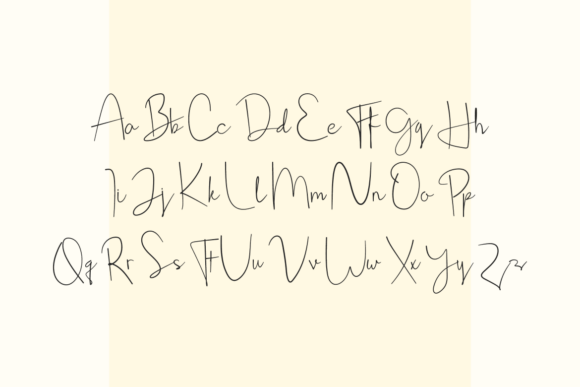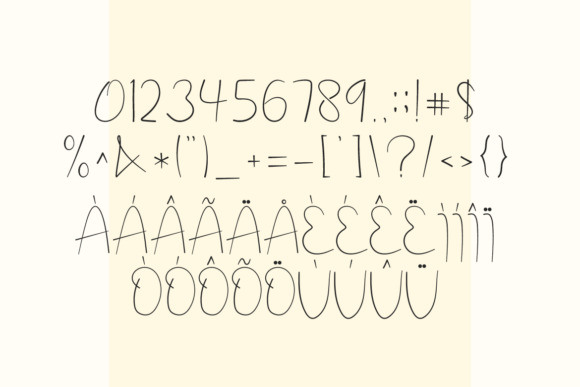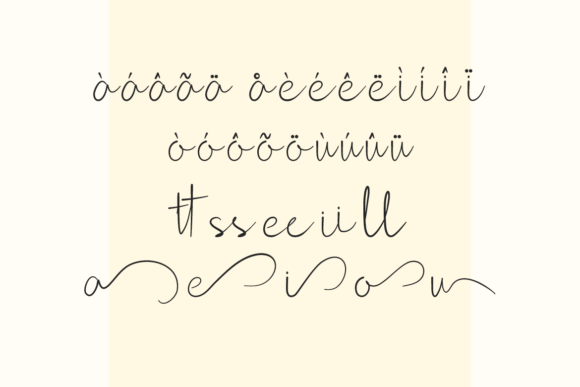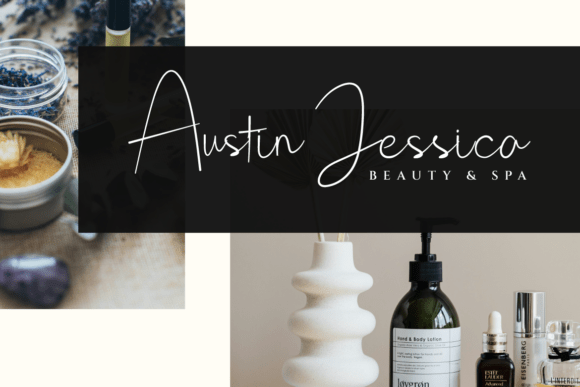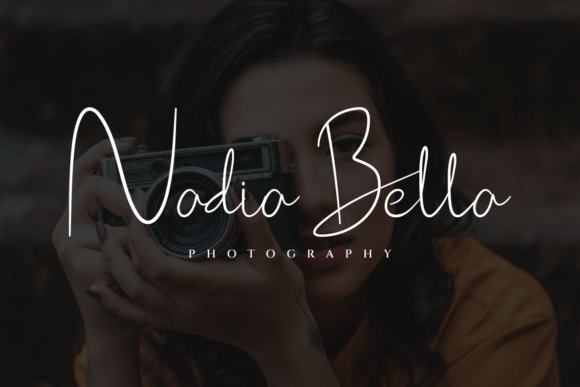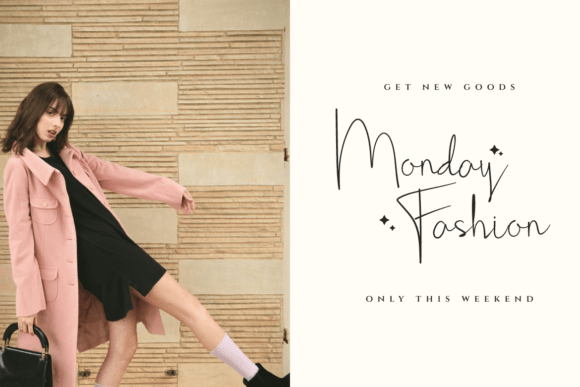
Gastton is a dynamic modern script font with a bold personality and smooth handwritten flow.
Designed to elevate any creative work, Gastton combines stylish curves with a confident stroke, making it ideal for branding, packaging, signature logos, and headline design .